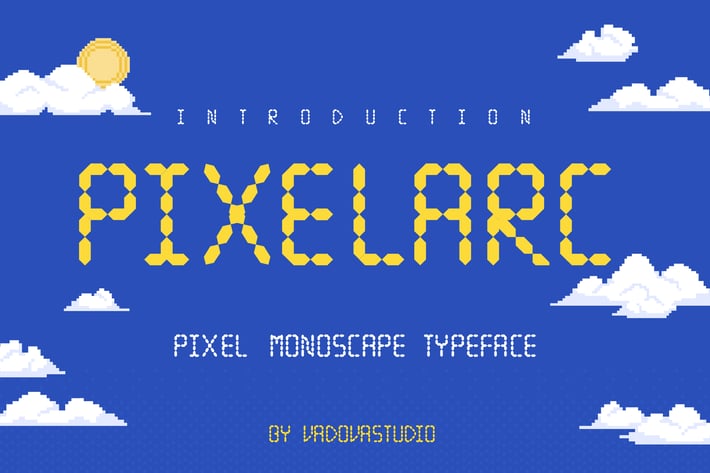
Pixelarc Monoscape Pixel Font
Pixelarc is a retro pixel display typeface designed with a monospaced grid structure, inspired by 8-bit arcade games, pixel RPG interfaces, and nostalgic screen typography. Its blocky dot-based characters make it perfect for gaming overlays, retro UI titles, pixel art posters, children’s learning graphics, app design, and collectible merchandise branding. Comes in uppercase, numerals, and punctuation in OTF, TTF, and WOFF formats, engineered for both print and digital use.
Relevance and Use Cases is perfect for retro game titles, pixel art branding, children’s educational visuals, arcade-style poster designs, gaming livestream overlays, NFT artwork typography, UI button labels, kawaii digital stickers, pixel animation titles, and merch for indie game studios.